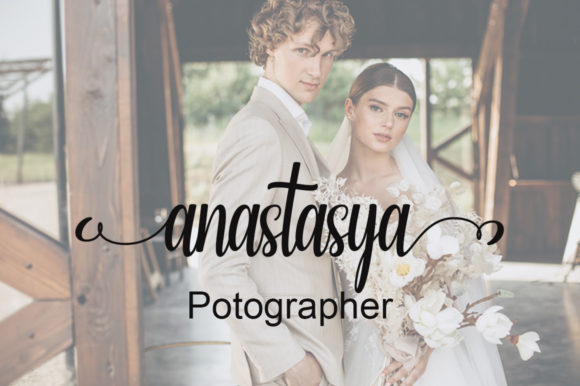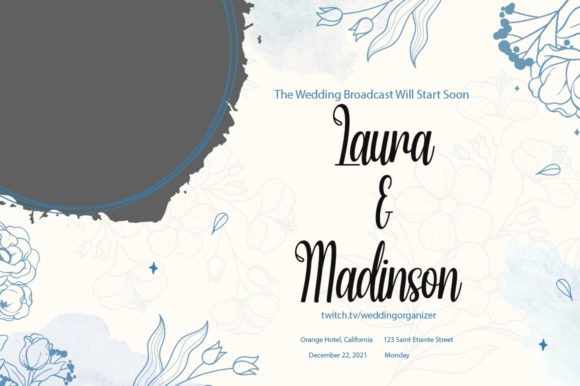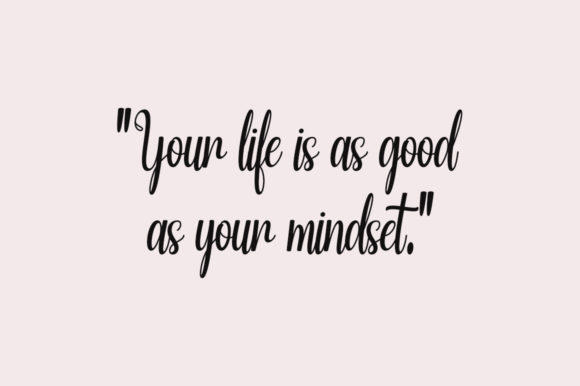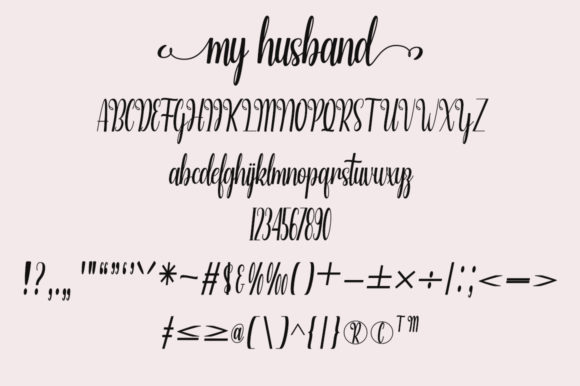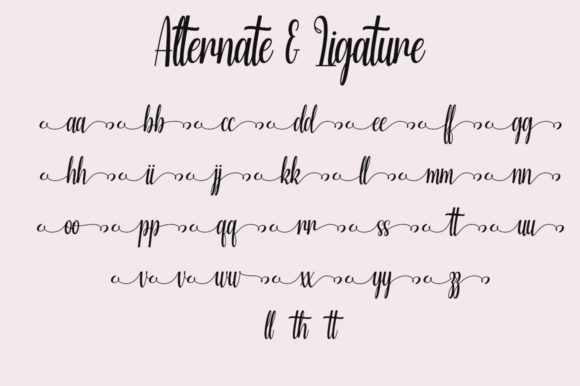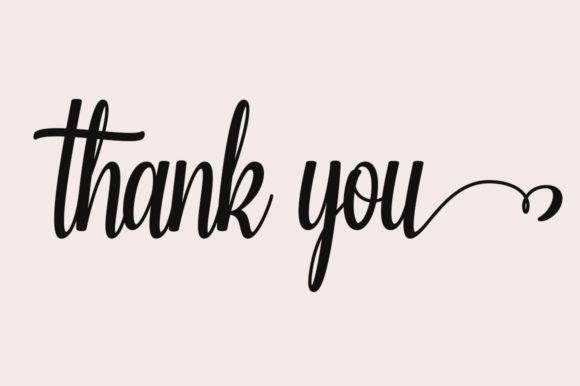
Introduction to My Husband Font
My Husband is a chic, refined script font that emanates sophistication and elegance.
Its stylish alternates and ligatures make this font the perfect match for any project My Husband is PUA encoded which means you can access all of the glyphs and swashes with ease.
Key Features of My Husband Font